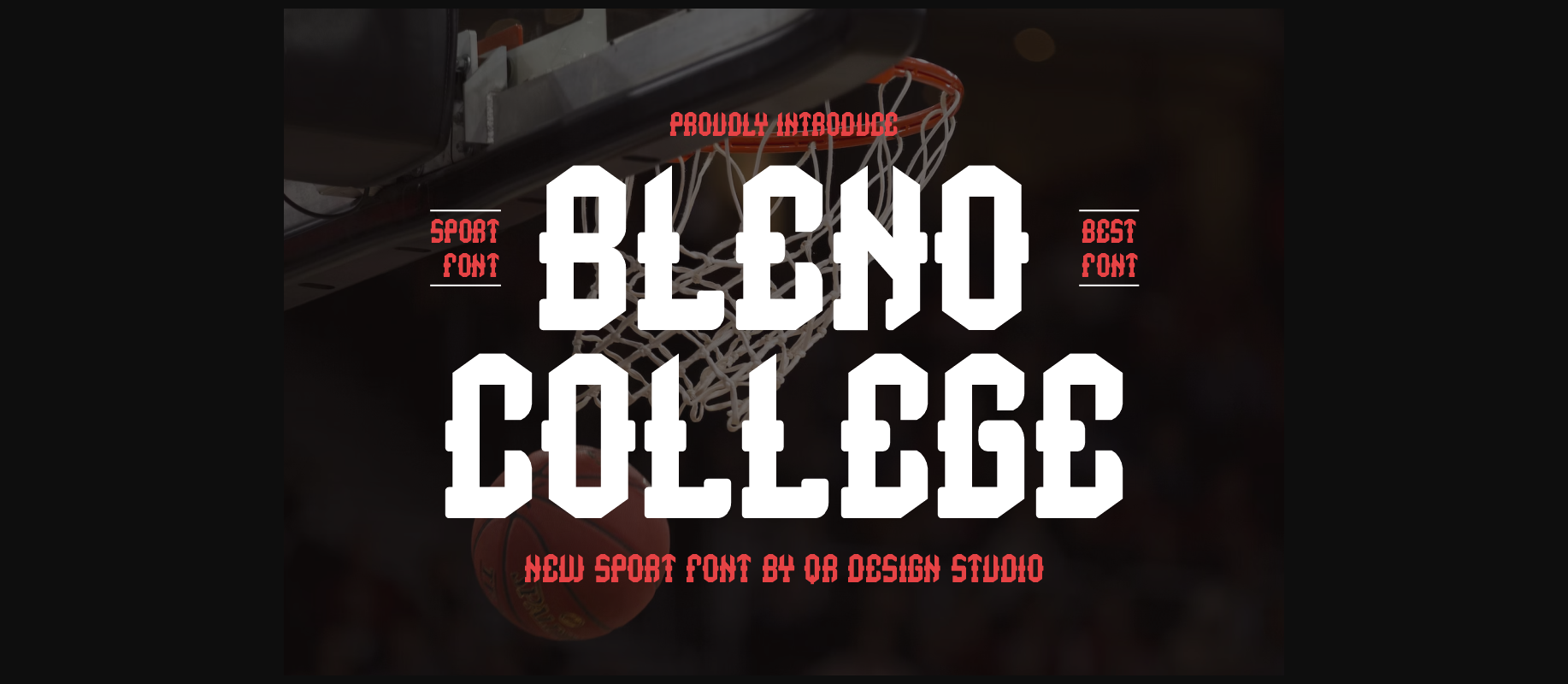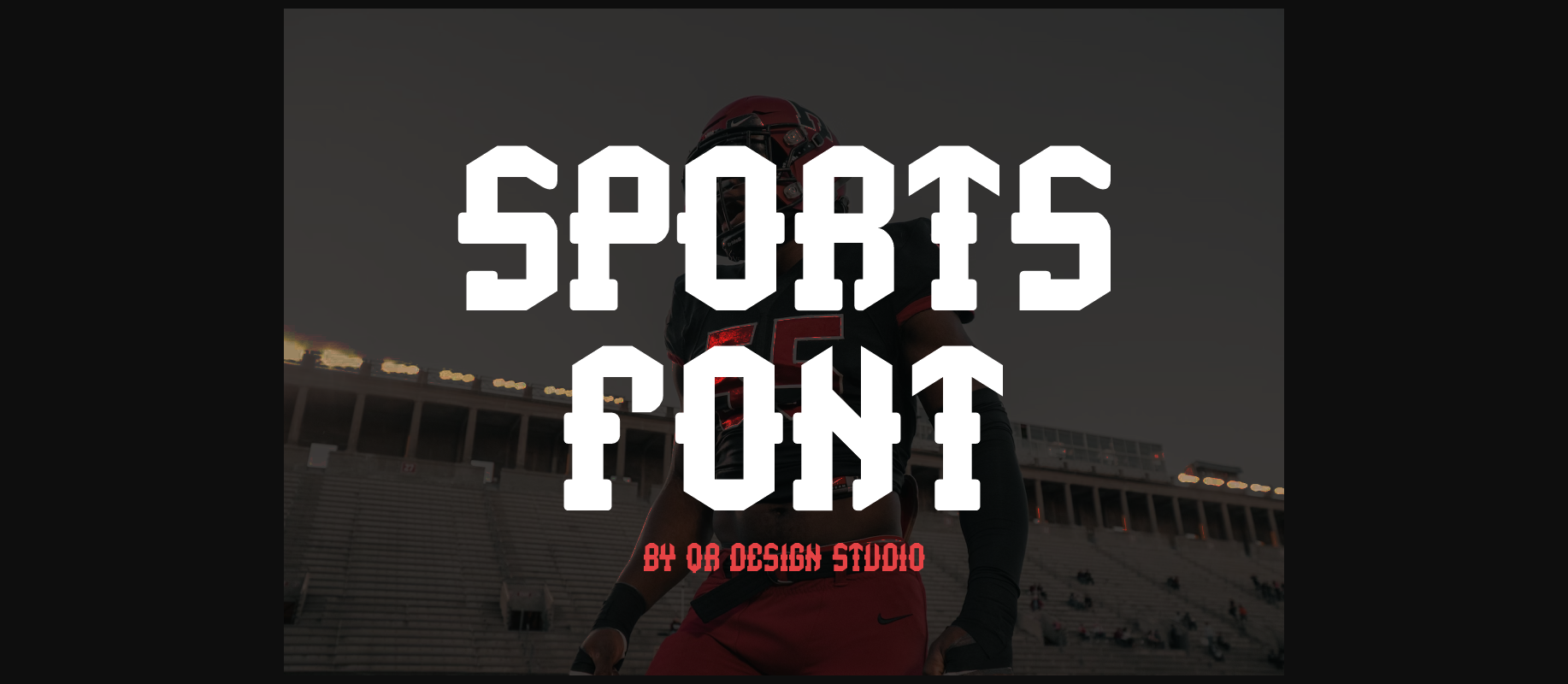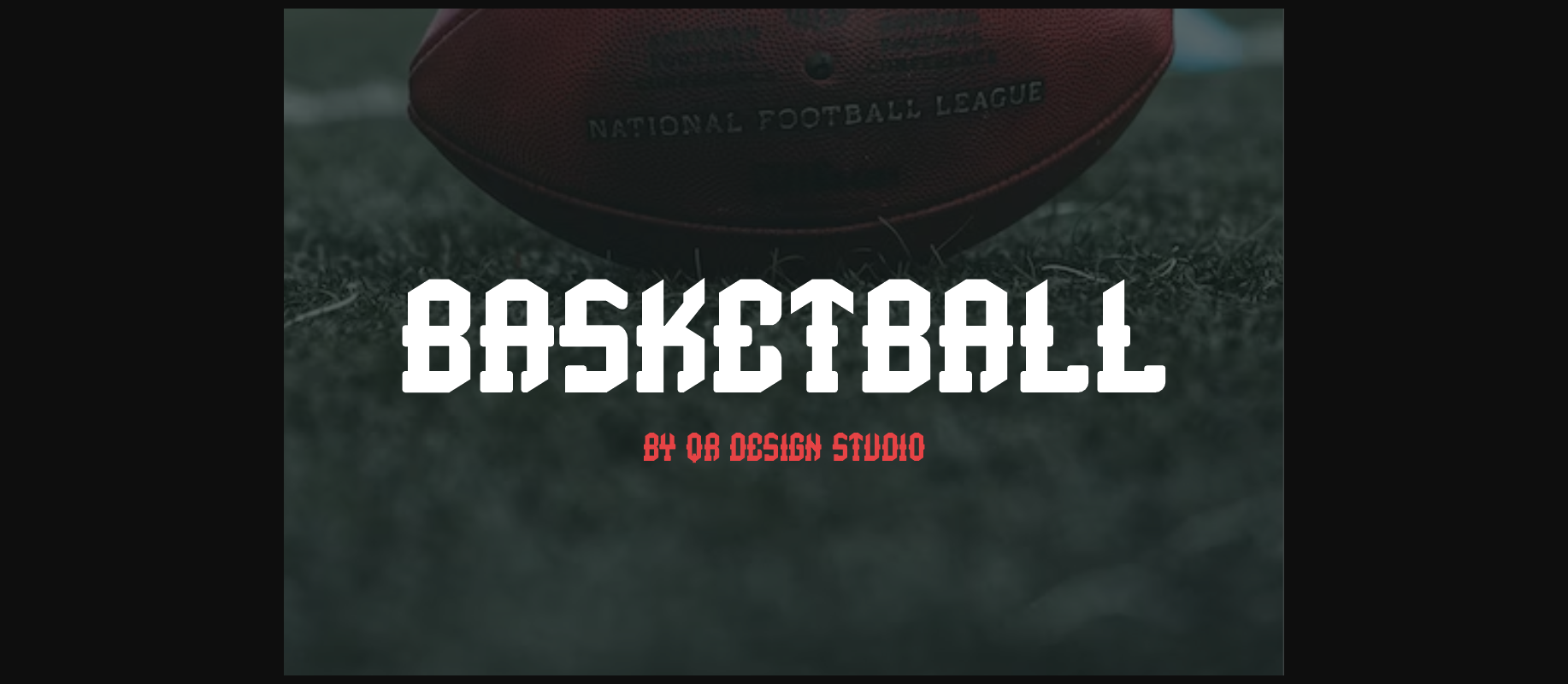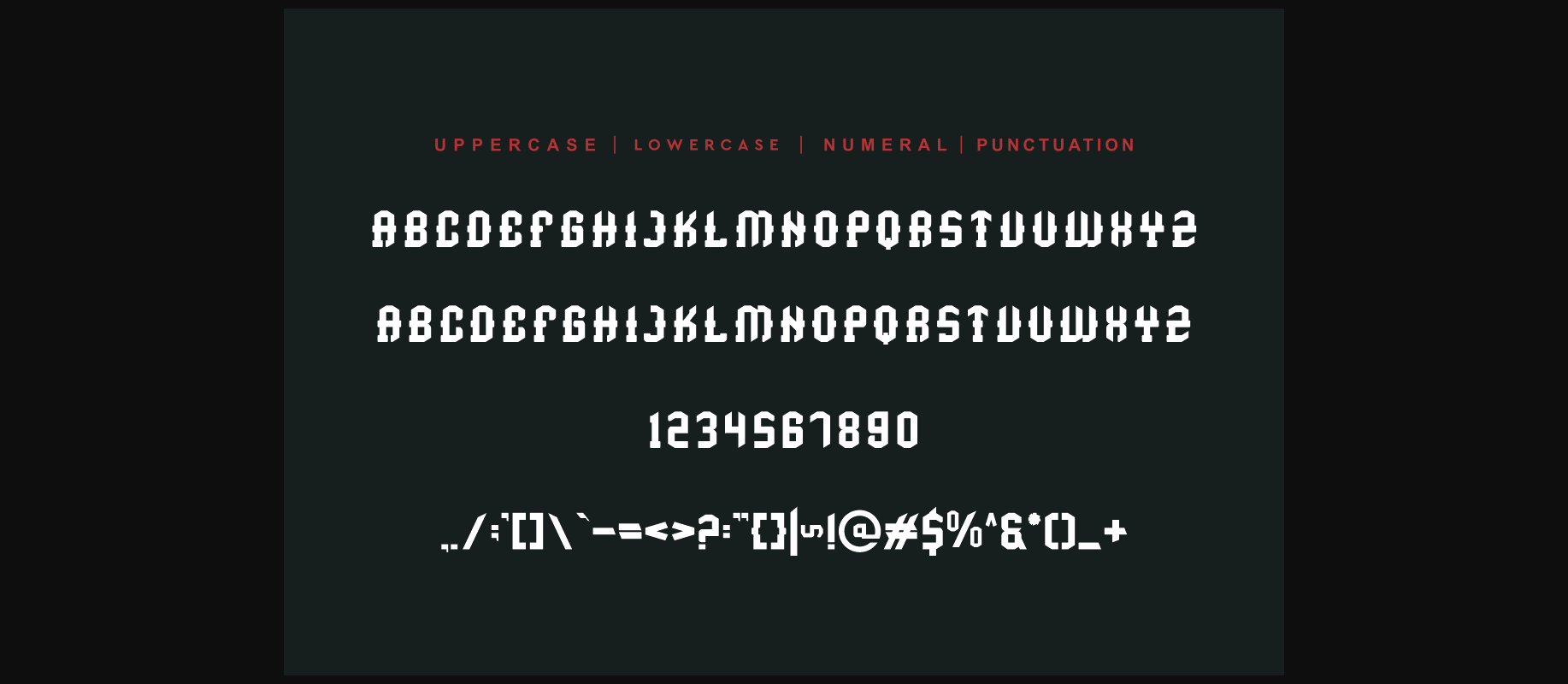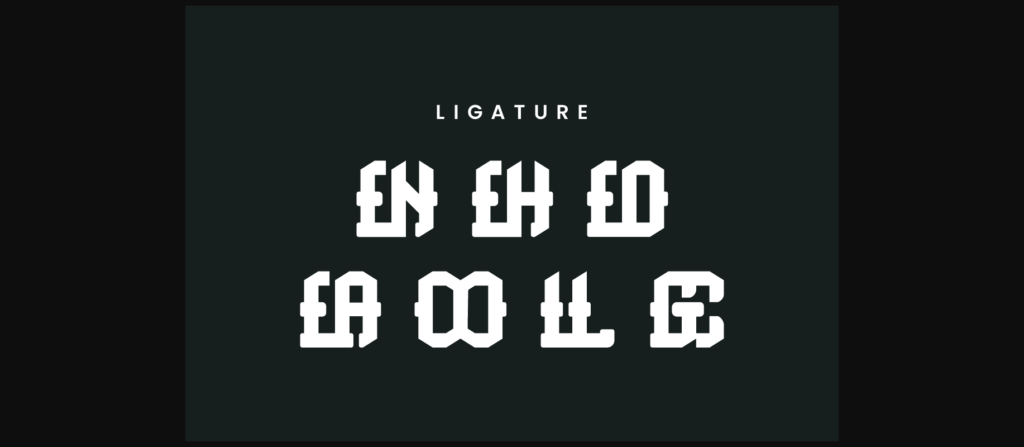
HomeDecorative FontsBleno College Font Decorative Fonts Bleno College Font FacebookXPinterestWhatsApp 1 of 8 ... Bleno College Font Poster 2... Bleno College Font Poster 3... Bleno College Font Poster 4... Bleno College Font Poster 5... Bleno College Font Poster 6... Bleno College Font Poster 7... Bleno College Font Poster 8... About Bleno College Font Bleno College is a unique and interesting display font. A little bit quirky, this font looks incredibly adept on a wide variety of contexts! DOWNLOAD NOW People also explored Funky Signature Font Boldlod Font Muinerve Thin Font Esmargo Font Heart Letter Font Snowflake Font Nightday Font HardTimes Roman Beauty Florist Font 353 0 TagsBleno College Font Previous articleRichoen FontNext articleClasico Space Font LEAVE A REPLY Cancel reply Comment: Please enter your comment! Name:* Please enter your name here Email:* You have entered an incorrect email address! Please enter your email address here Website: Save my name, email, and website in this browser for the next time I comment. Personal Use Free Nickainley Personal Use Free Read more about this font Lumber Personal Use Free Read more about this font Capellen Personal Use Free Read more about this font Goodline Font Personal Use Free Read more about this font BLOG How to Install and Use Fonts on Windows, macOS, and Web Projects How to Install and Use Fonts on Windows, macOS, and Web Projects Fonts are a crucial part of design and branding. Whether you’re designing a... Best Fonts for T-Shirt Design – Top 2025 Picks How to Cut Any Font on Cricut: Convert a Font to SVG (Free) Free Fonts Risk: Why Free Fonts Can Be Dangerous for Designers